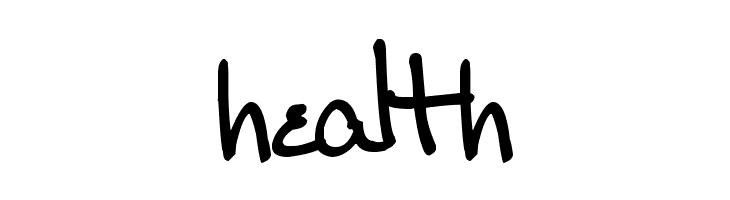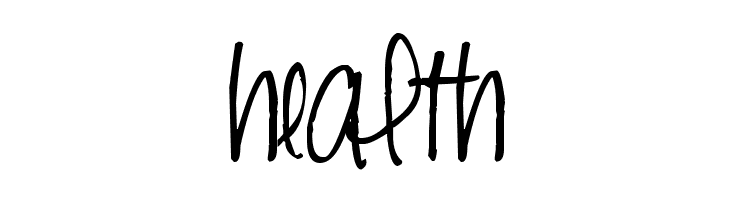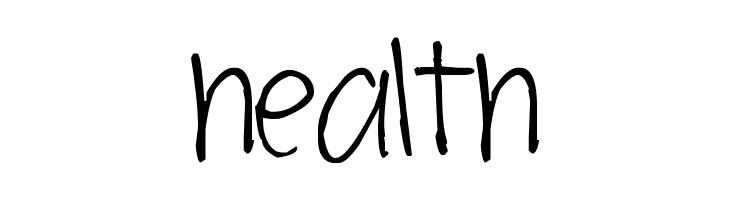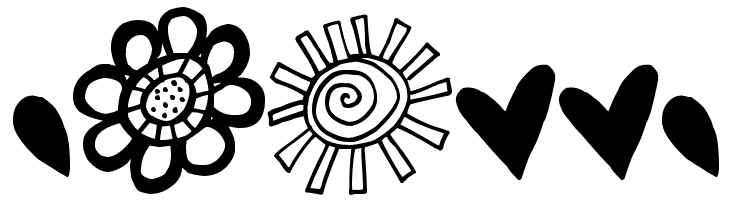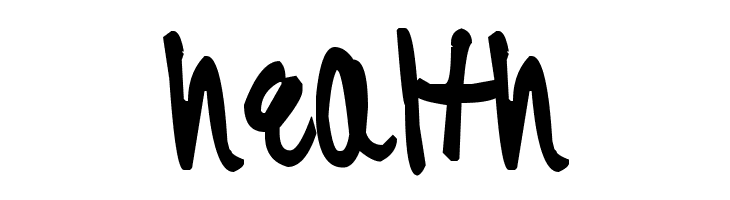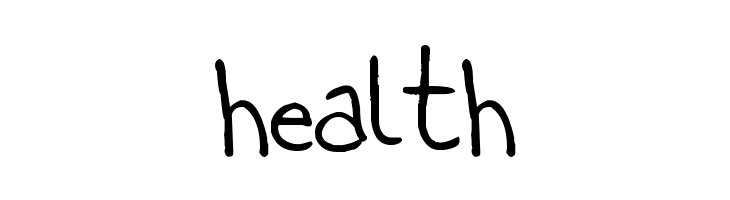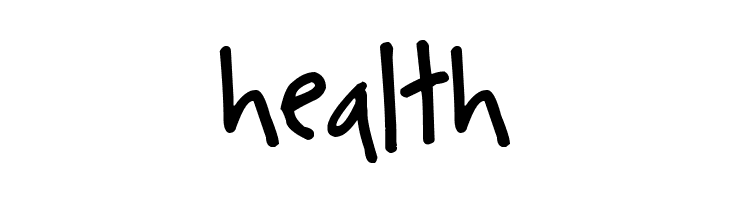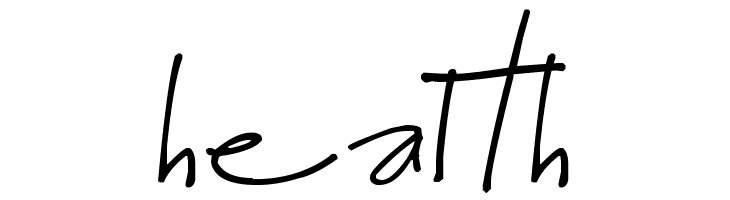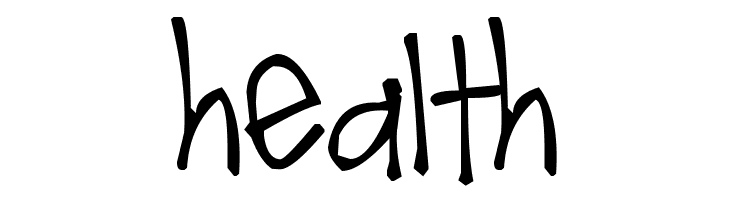
• Pea Beth R
A playful, casual handwritten font with smooth, flowing lines and rounded edges.
• Pea Bethany
A playful, casual handwritten font with uneven strokes and a relaxed style.
• Pea Bethany's Doodles
A playful and whimsical collection of hand-drawn doodles, including hearts, stars, and flowers.
• Pea Breathe Easy
A playful, casual handwritten font with a relaxed and informal vibe.
• Pea cammi-pea
A playful, handwritten font with irregular, whimsical letterforms.
• Pea Captivatiingly
A playful, handwritten font with bold, rounded strokes and a casual vibe.
• Pea Cara
A playful, informal handwritten font with dynamic strokes.
• Pea Cara in TX
A playful and energetic handwritten font with irregular strokes and a casual vibe.
• Pea Carrie
A playful, handwritten font with a casual and lively style.
• Pea Carrie Script
A playful, casual handwritten script with bold strokes and a dynamic feel.